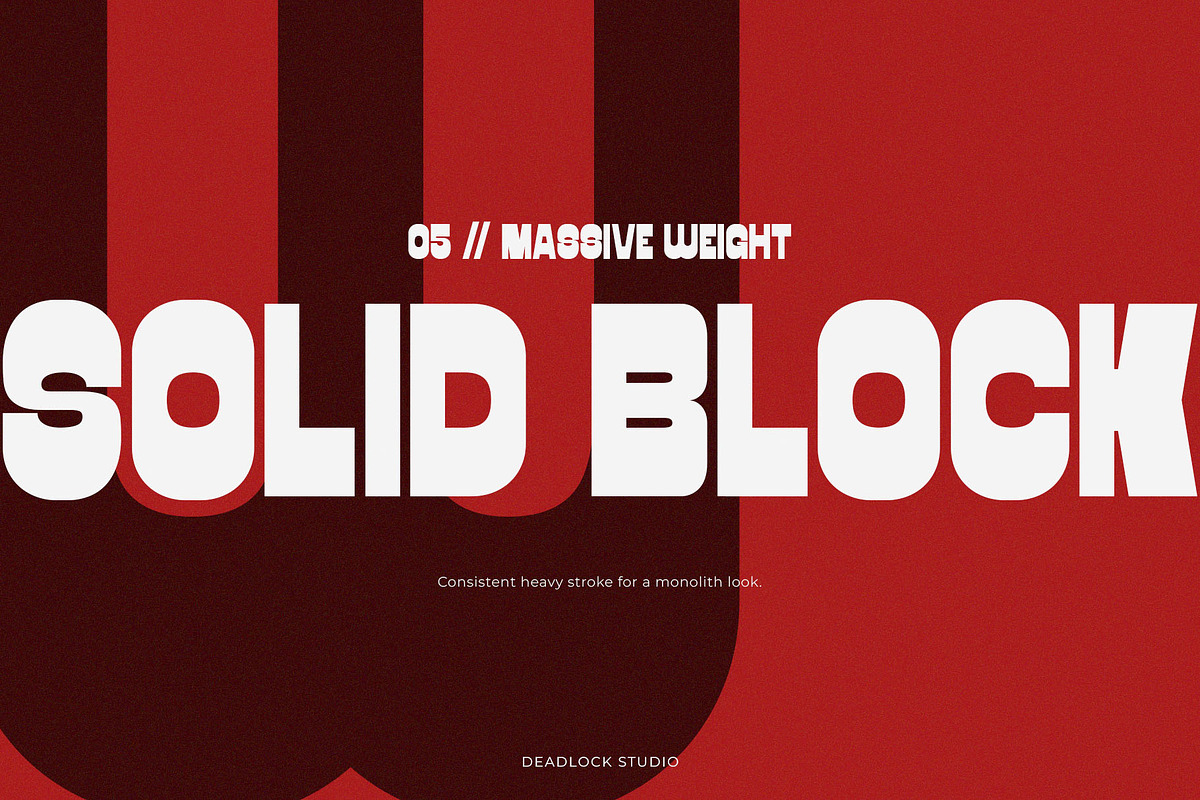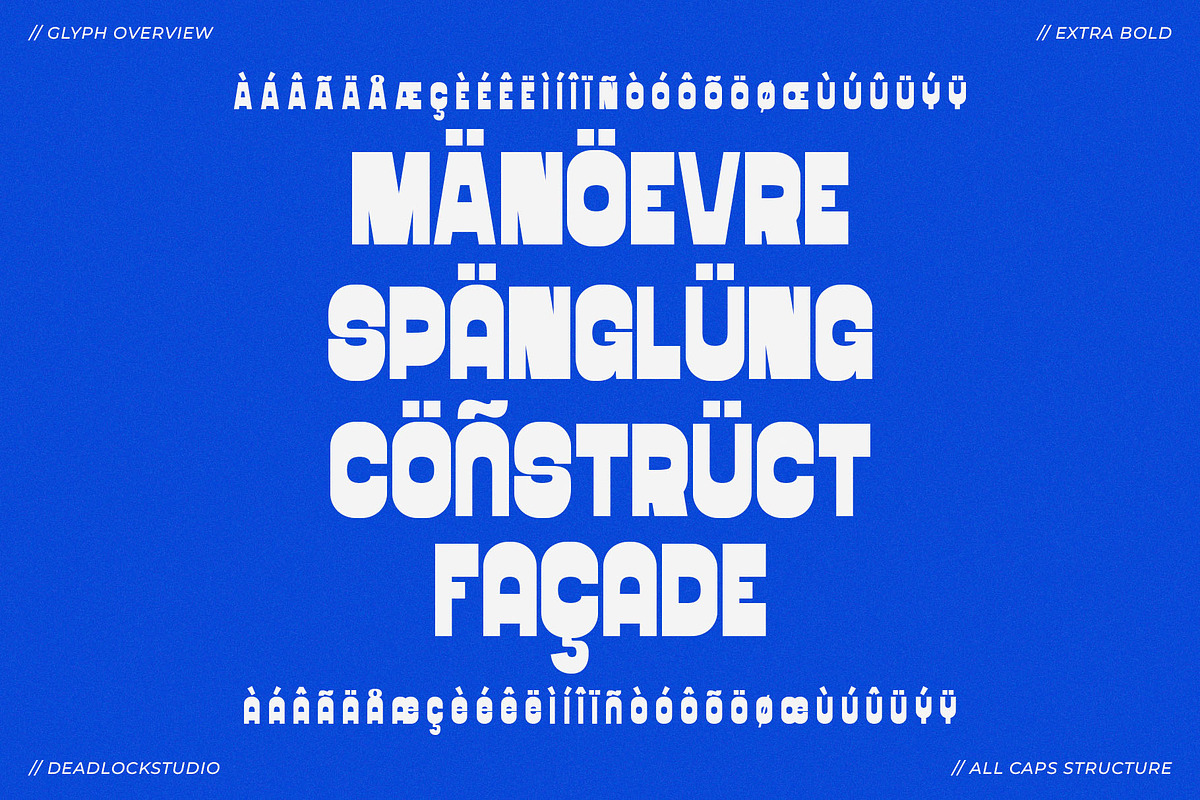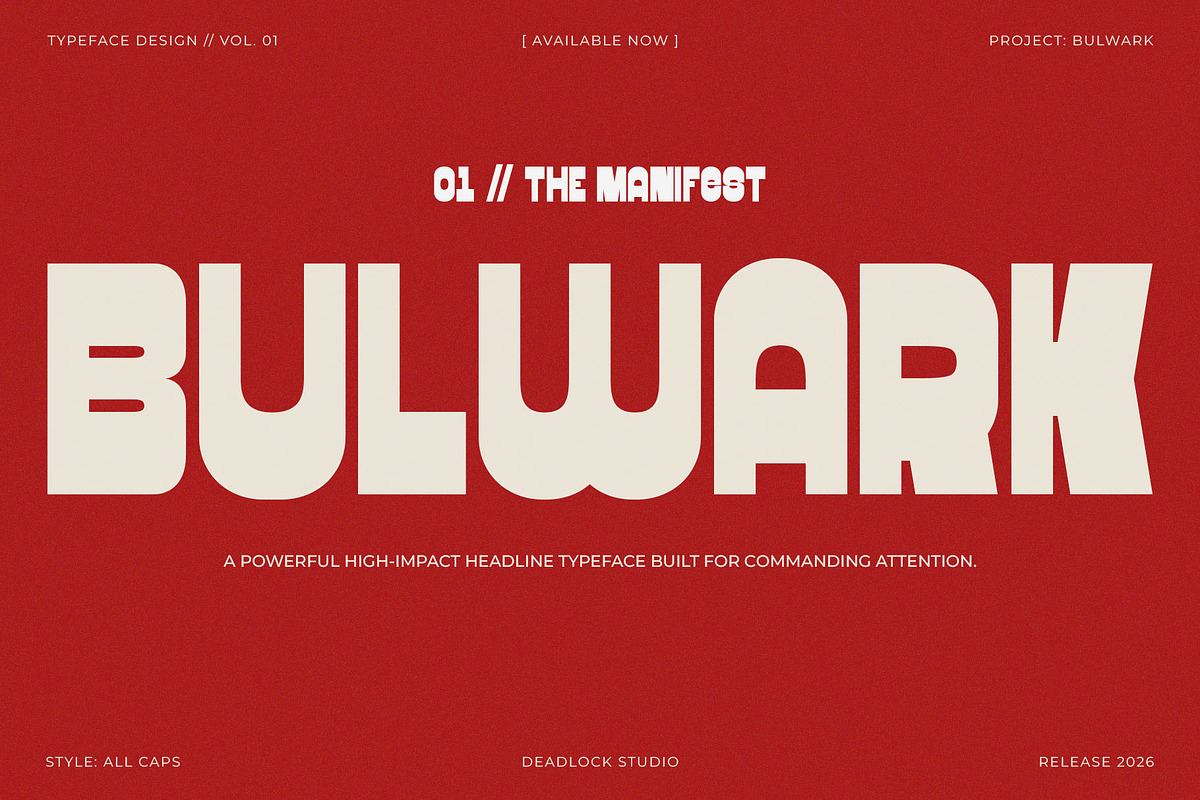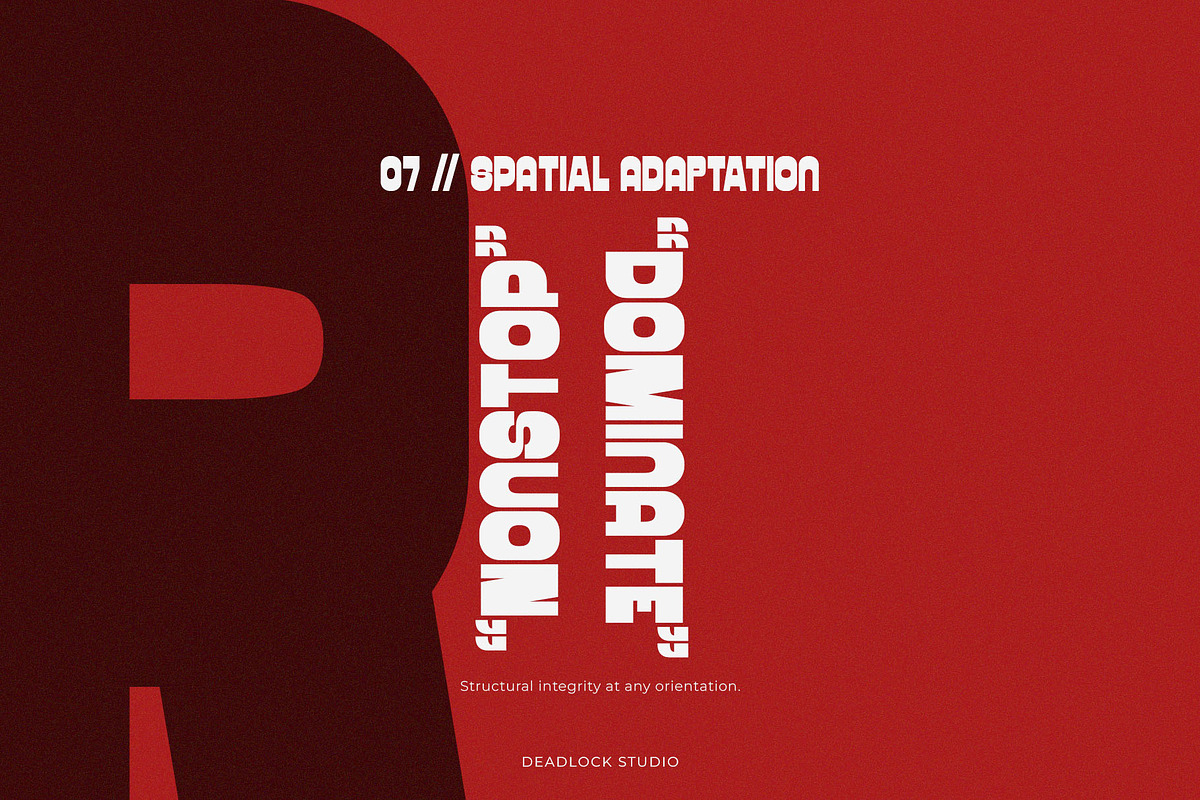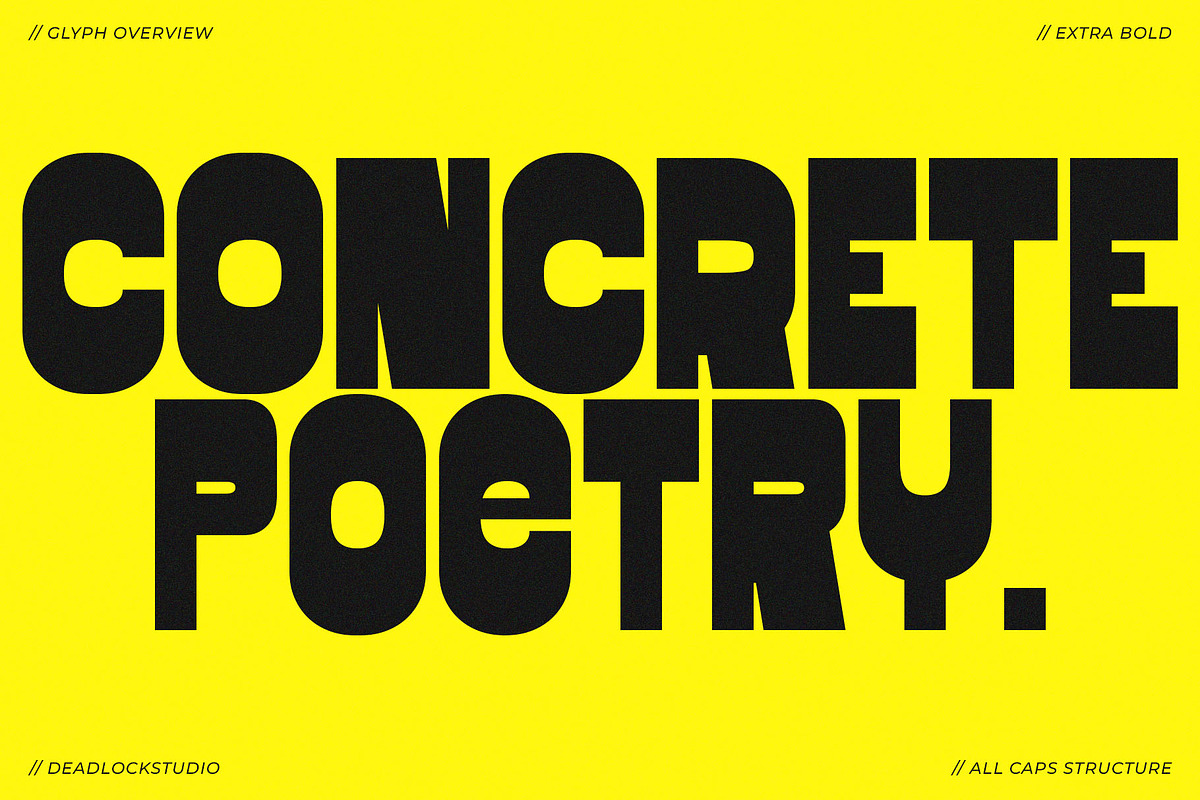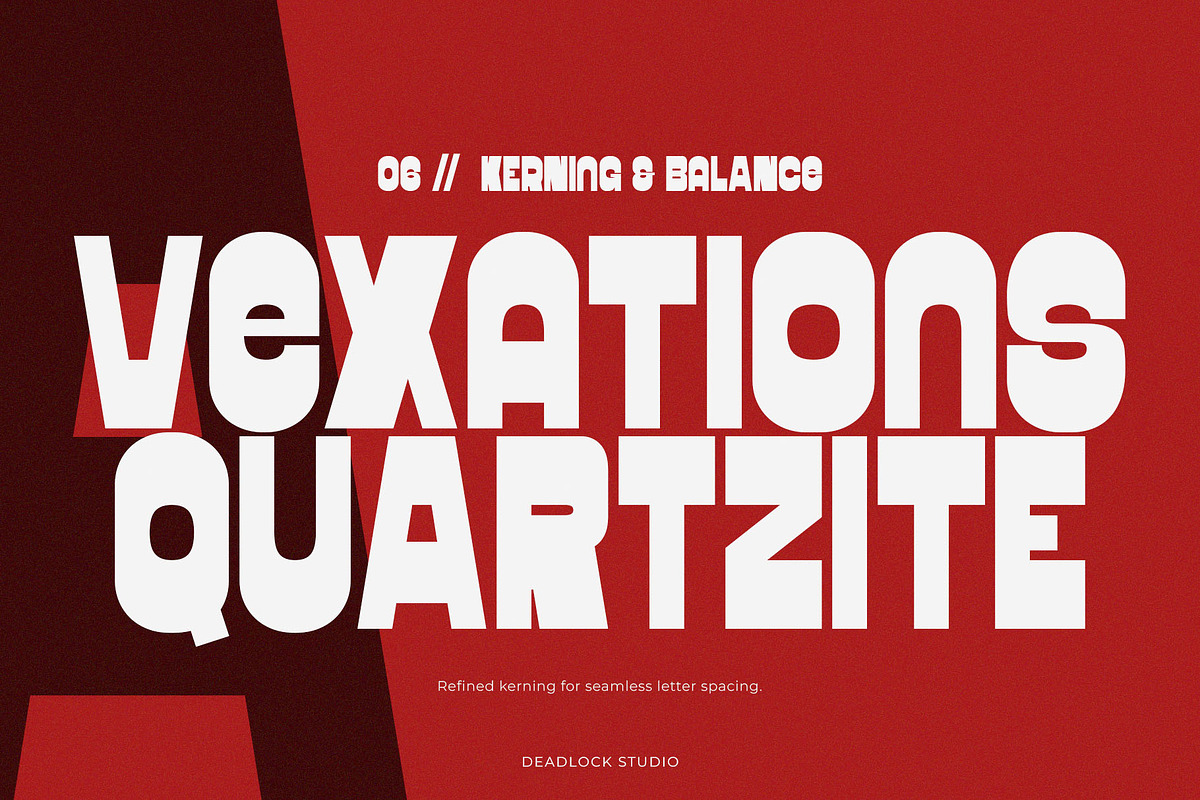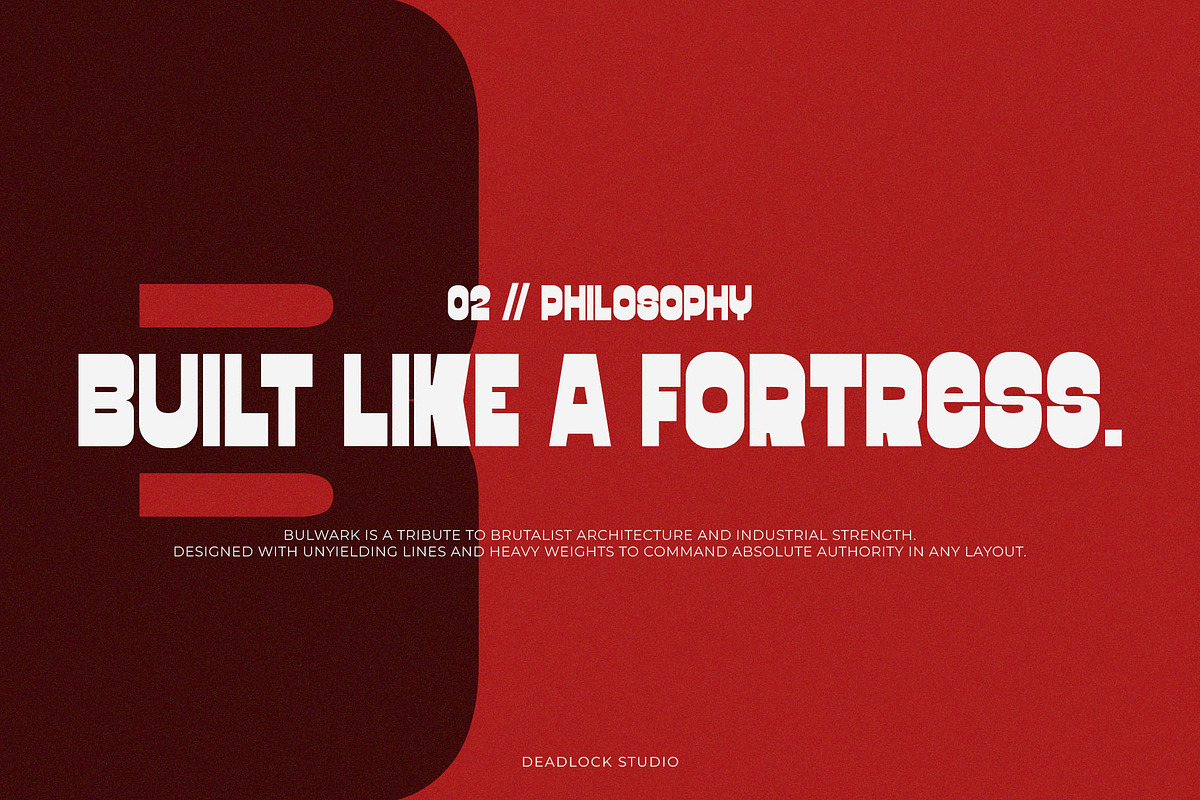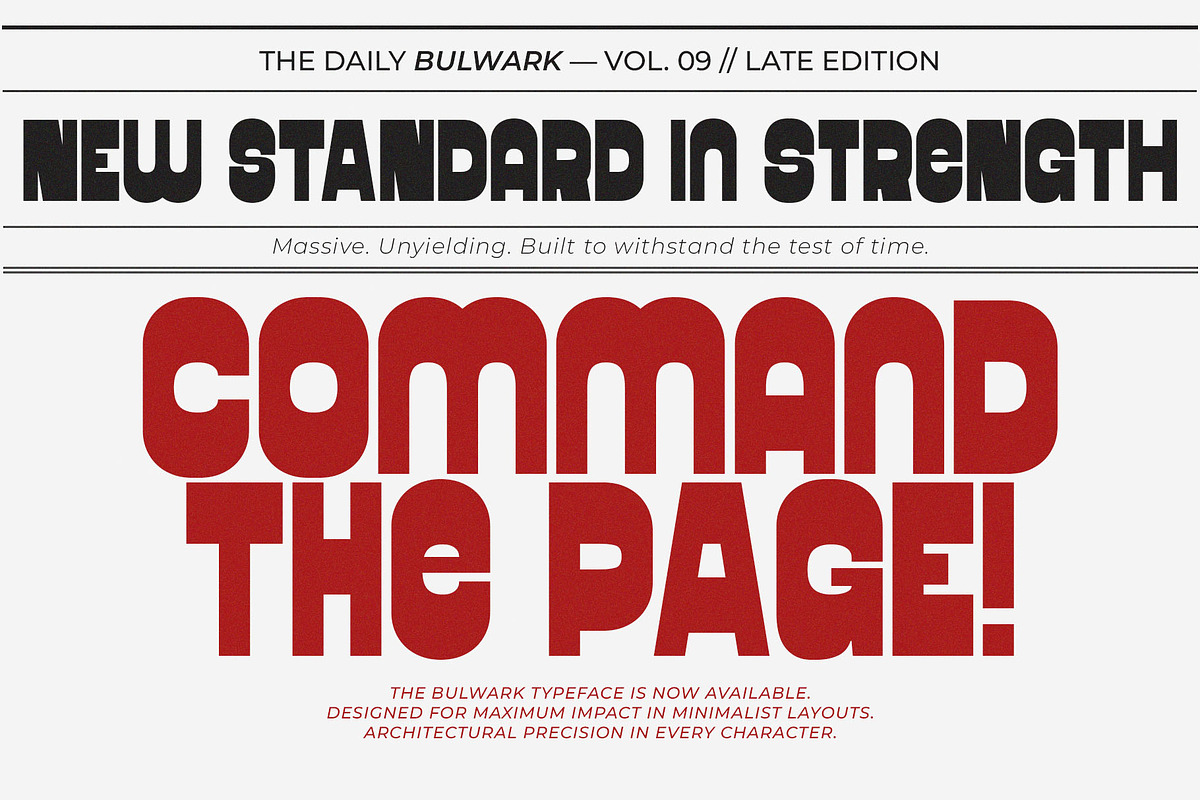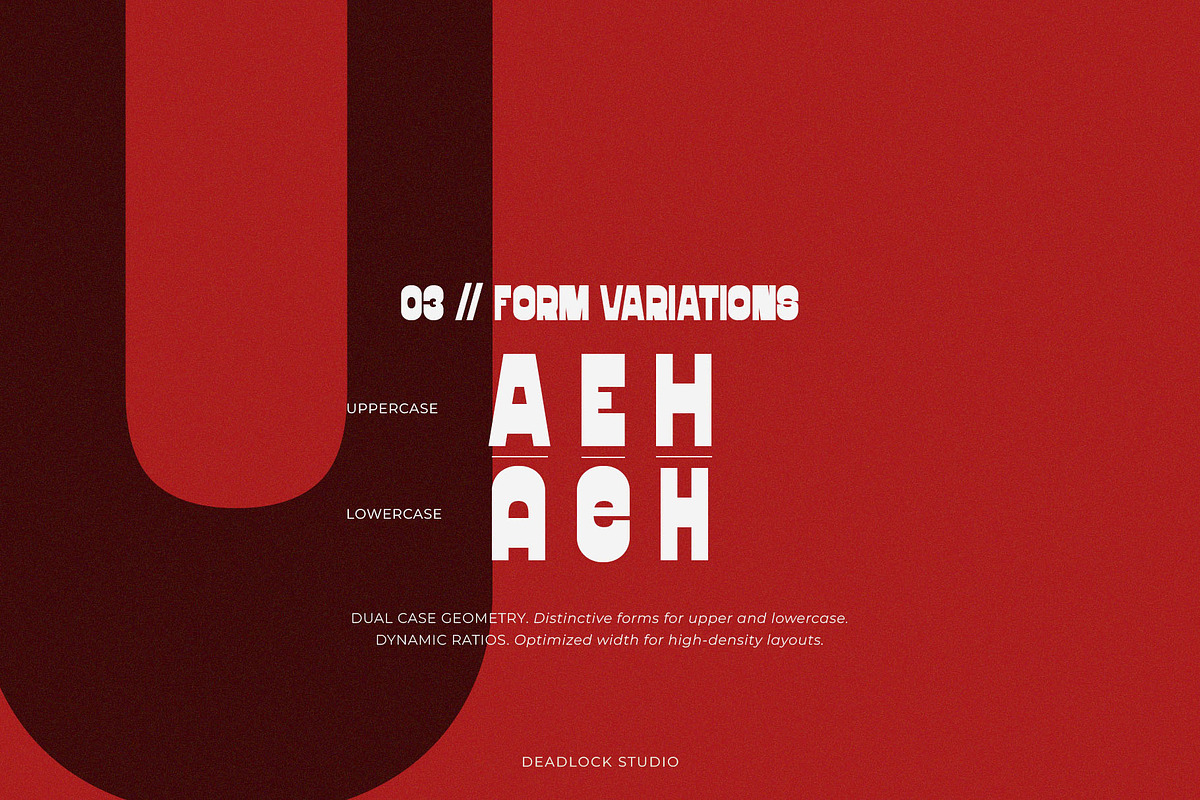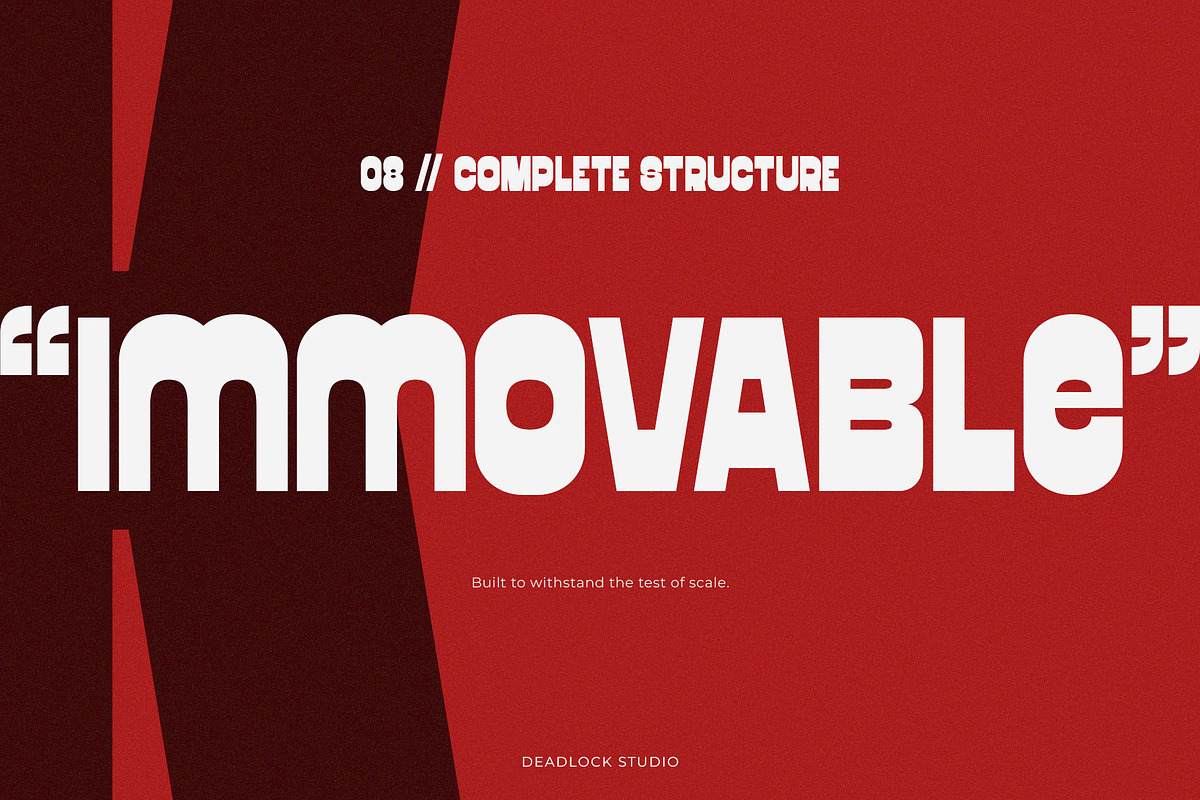
Bulwark
BULWARK is a monolithic all-caps typeface engineered for maximum visual impact and structural authority. Heavily inspired by the raw honesty of brutalist architecture and the unyielding nature of industrial environments, this typeface is designed to dominate the layout, providing a solid foundation for any high-pressure design project.
Every glyph in the BULWARK system has been meticulously refined to ensure perfect balance, even at extreme scales. Whether you are crafting aggressive streetwear branding, high-end editorial frontpages, or large-scale environmental signage, BULWARK delivers a commanding presence that is impossible to ignore.
Ideal for: Impactful Headlines, Brutalist Posters, Bold Branding, Apparel Design, and Industrial Signage.